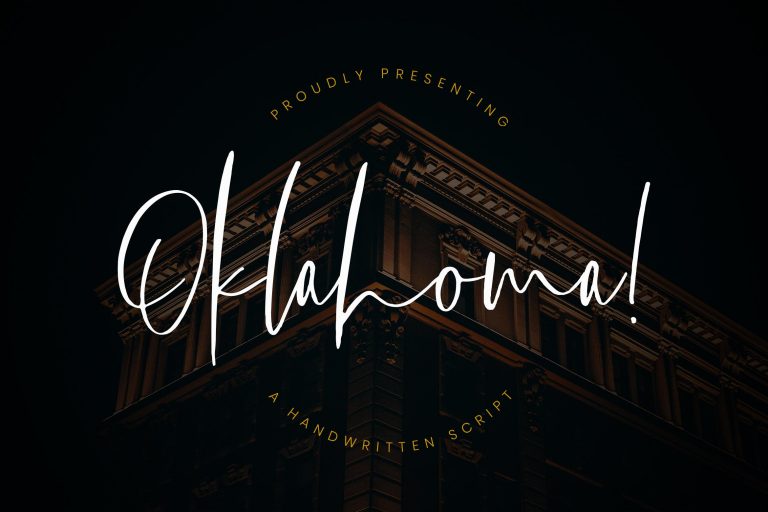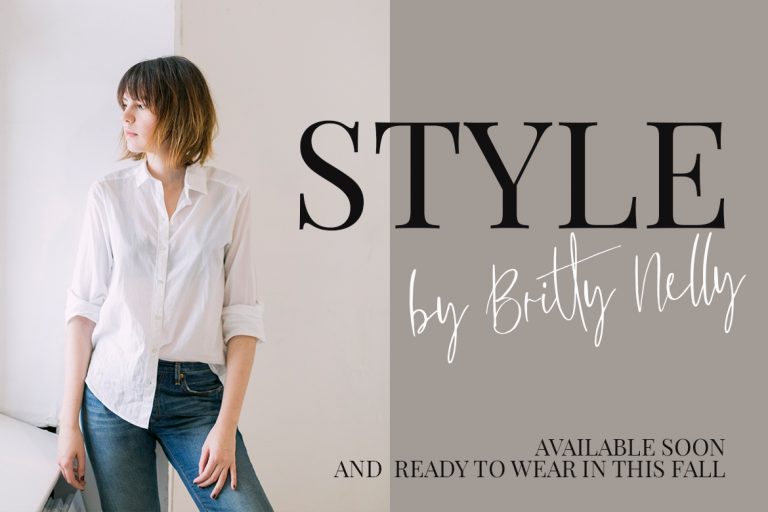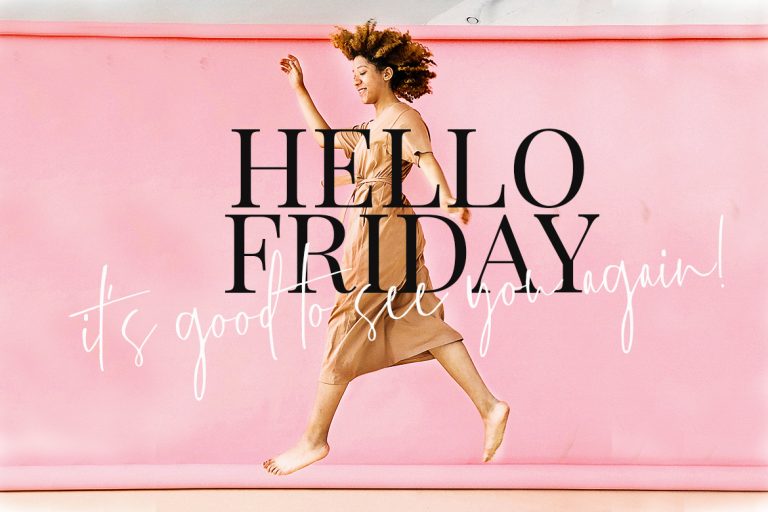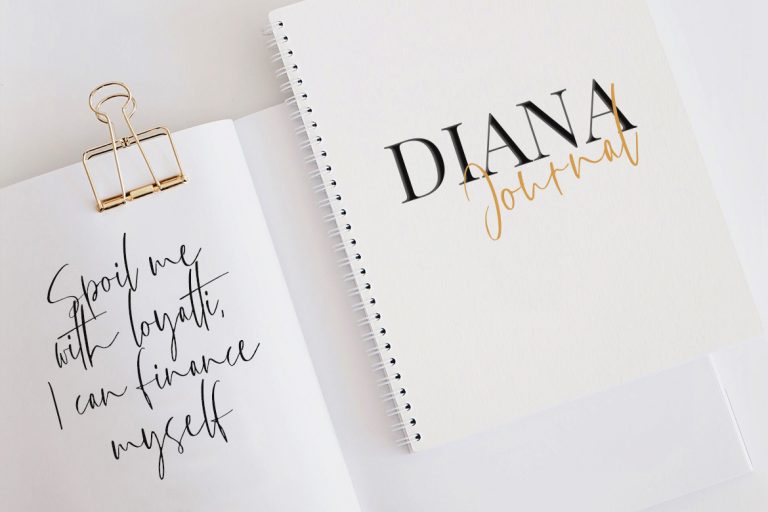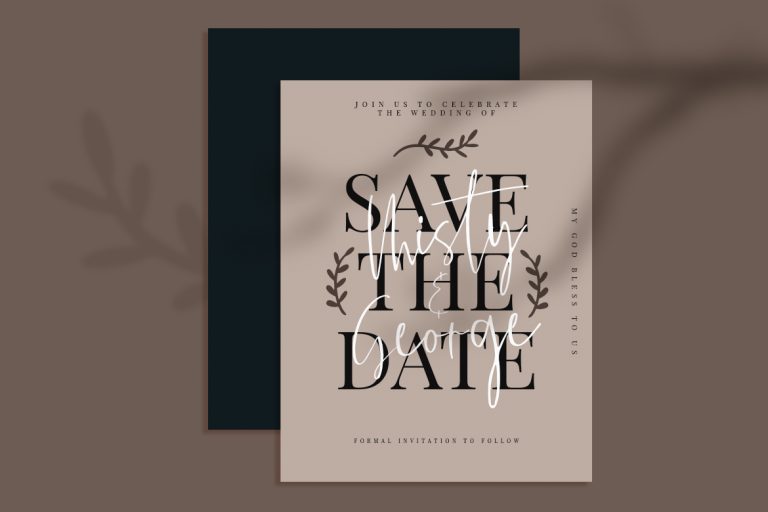
Oklahoma Handwritten Script
Oklahoma, A stylish modern font with natural handwritten script looks elegant and classy for your latest project.
Oklahoma is perfect for branding projects, logo, wedding designs, social media posts, advertisements, product packaging, product designs, label, photography, watermark, invitation, stationery and any projects that need handwriting taste.